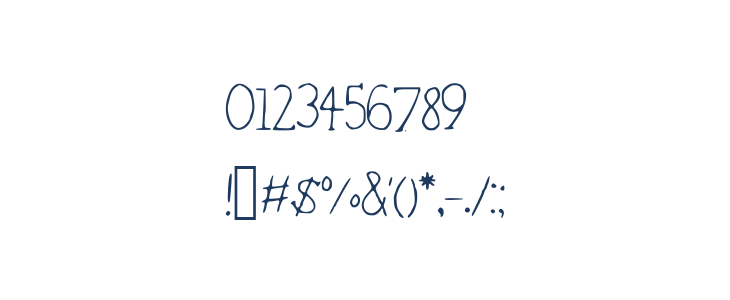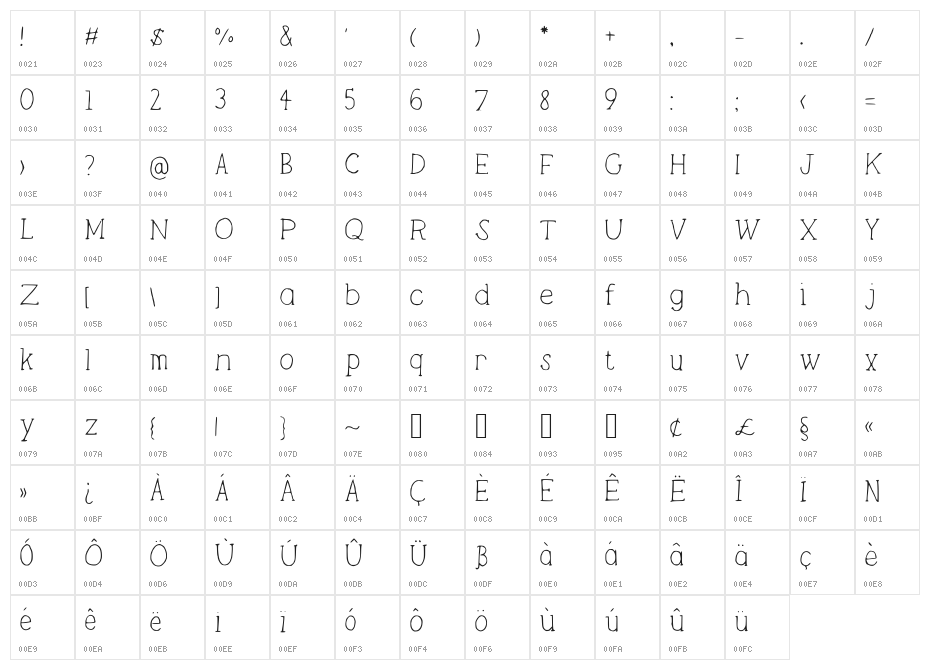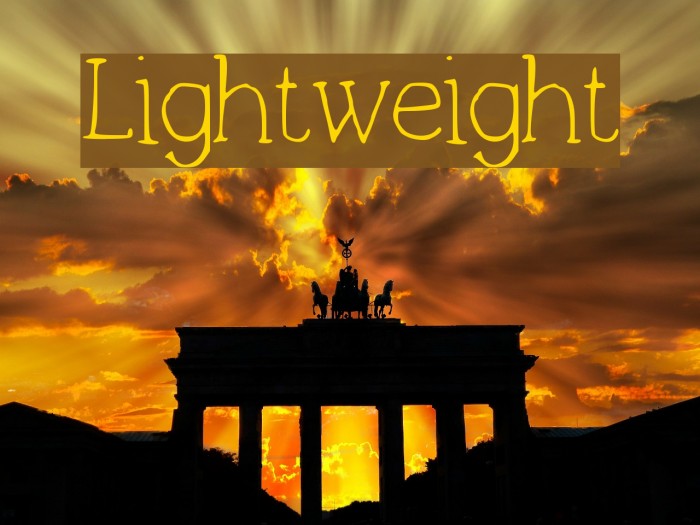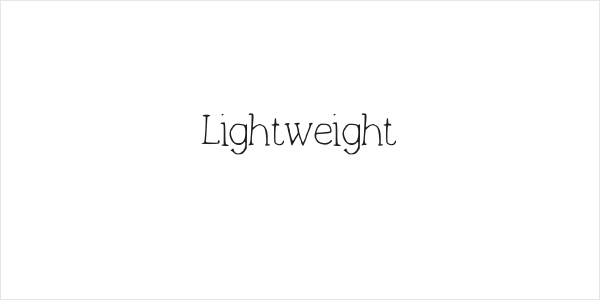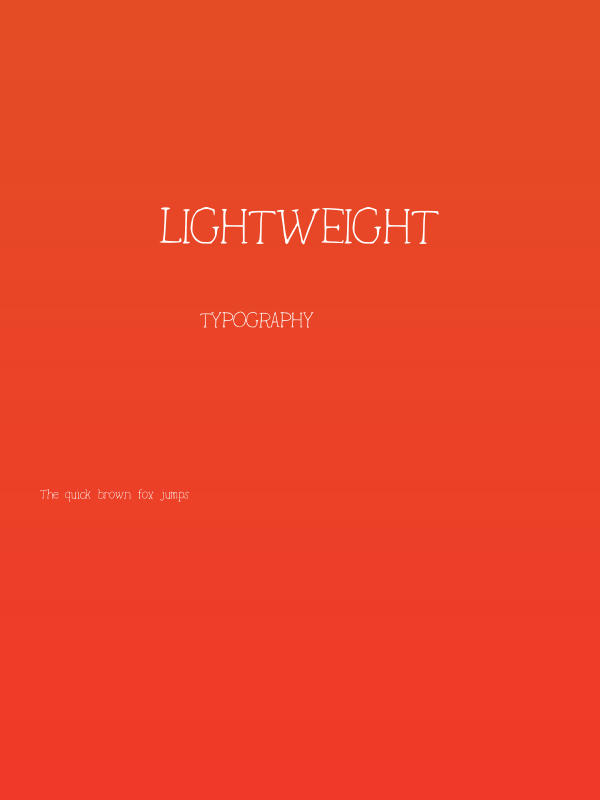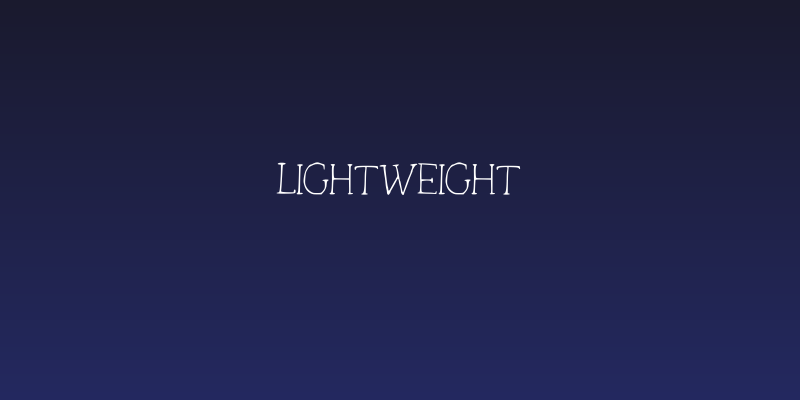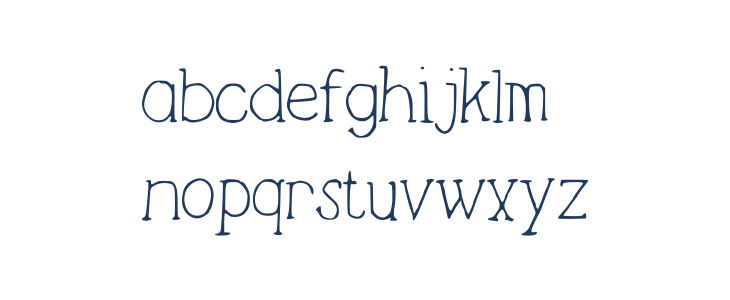
Lightweight Font
Lightweight Description
This font exhibits a playful and whimsical style, characterized by its hand-drawn appearance. The letters have an uneven baseline and irregular stroke widths, giving it a casual and informal feel. The uppercase and lowercase letters maintain a consistent style, with rounded edges and a slightly tilted orientation. The numerals and special characters follow the same playful design, making the font suitable for creative and artistic projects. Its unique charm lies in the imperfect lines and organic shapes, which add a personal touch to any design.
| Use Case | Headlines, Logos, Creative projects |
| Proposed Projects | Ideal for children's books, greeting cards, playful branding, and artistic posters. |